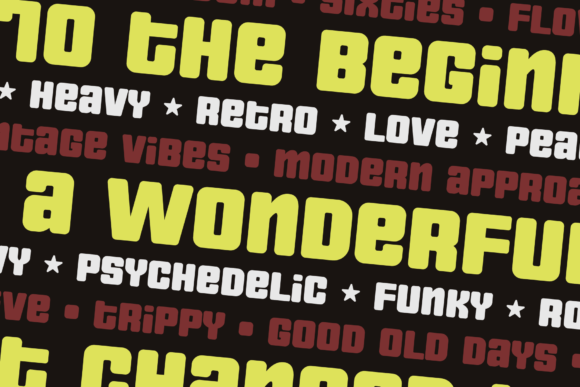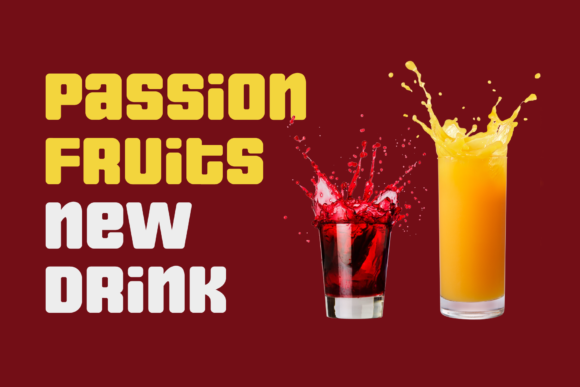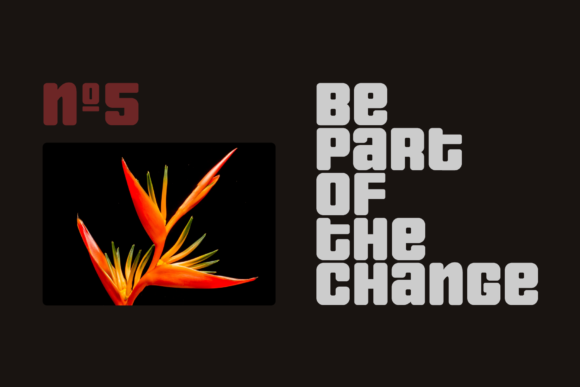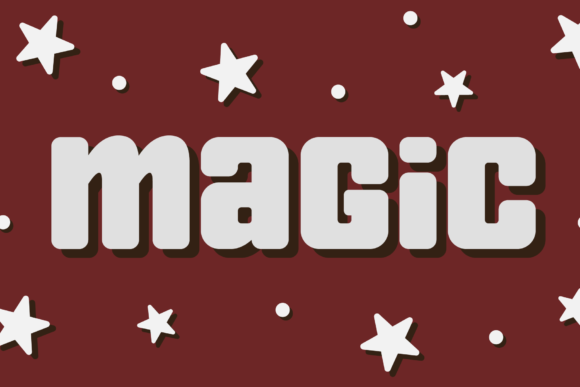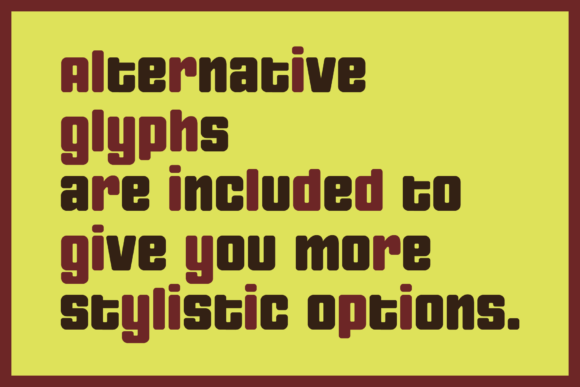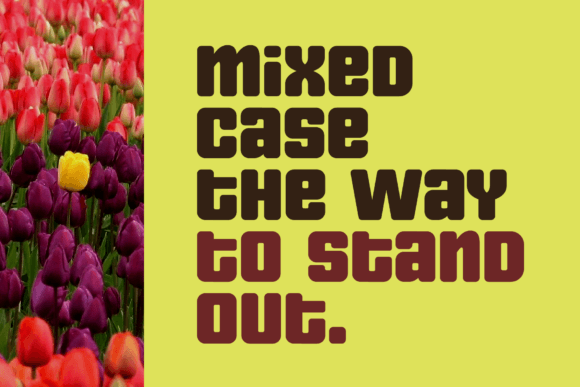
Introduction to Nipok Font
Have you ever found yourself lost in a creative moment, surrounded by papers, fonts, and ideas, trying to find the perfect combination to bring your project to life? As designers, we’ve all been there – searching for that one special element that sets our work apart. For me, that moment came when I stumbled upon the Nipok Font, a single-weight display typeface that has been a game-changer for my creative projects.
The Nipok Font is more than just a font – it’s a design resource that offers a unique blend of rounded terminals and playful intersections, paired with straight and compact lines. Its semi-unicase style, which alternates between upper and lower case letters, creates a sense of harmony and balance that’s hard to find in other fonts. And with its PUA encoding, accessing all the glyphs and swashes is a breeze, making it perfect for designers who need a high-quality font for their projects.
Honest Review: Nipok Font
As a designer, I’m always on the lookout for high-quality design resources to elevate my creative projects. The Nipok Font caught my eye, and I was excited to try it out.
Here’s what I like about the Nipok Font:
- ✨ High quality: The font is well-designed, with clean lines and a professional feel.
- ✨ Versatile: The Nipok Font is suitable for a wide range of creative projects, from logos to brochures.
- ⚠️ Limited character set: The font only includes a basic set of characters, which may not be suitable for complex designs or languages.
- ⚠️ Not ideal for small text: The font can appear pixelated when used for small text, which may not be ideal for certain designs.
Overall, I think the Nipok Font is a great addition to any designer’s toolkit. While it may have some limitations, its high quality and versatility make it a valuable resource for creative projects.
Using Nipok Font in Design Projects
Tips for Getting the Most Out of Nipok Font
Nipok Font is commonly used in creative projects that require a high-quality, visually appealing font. Some common use cases include:
- Presentation slides